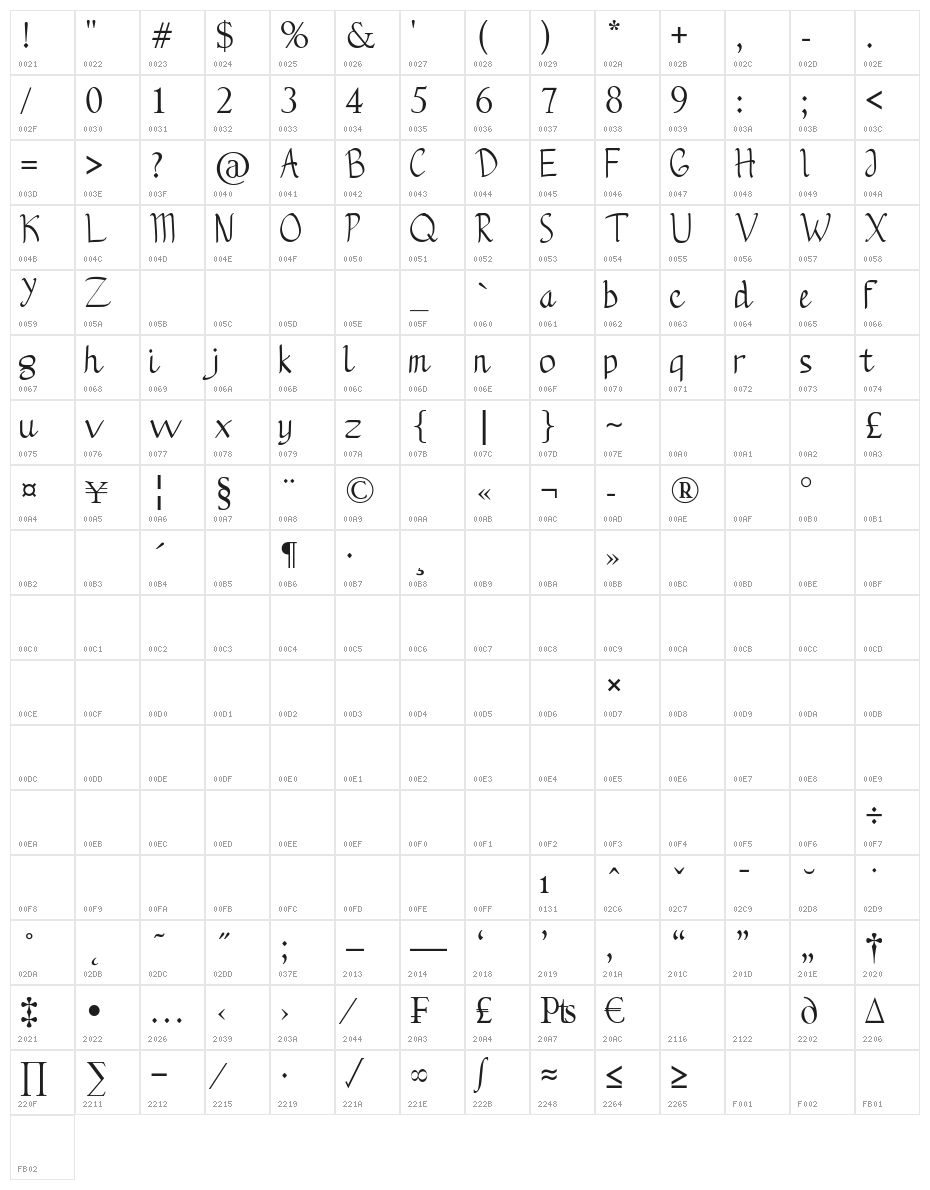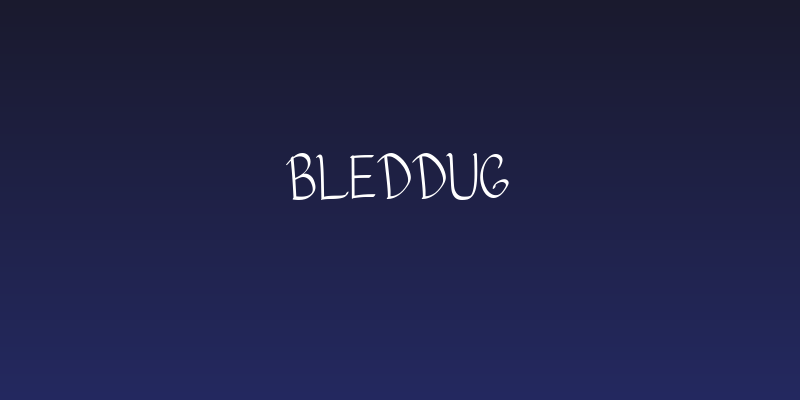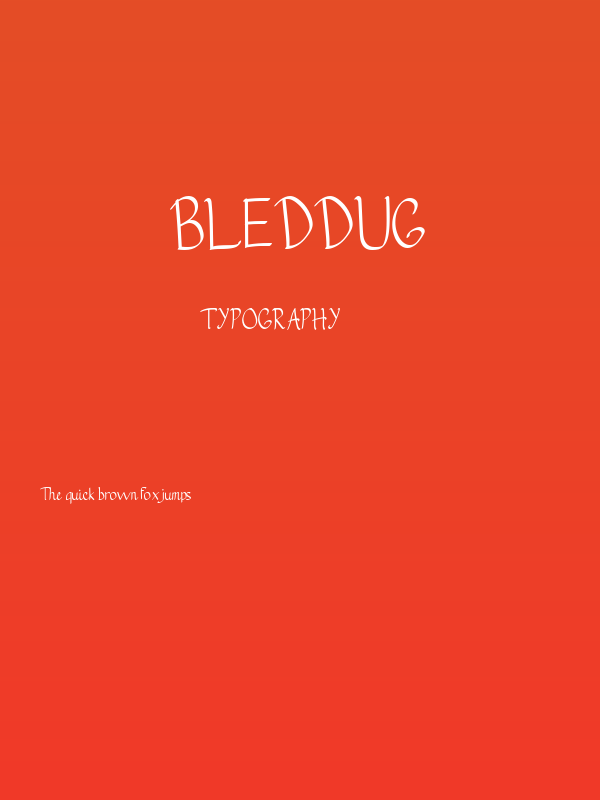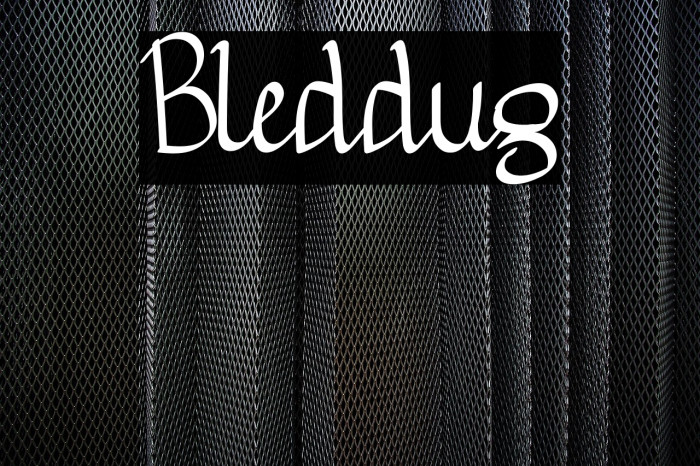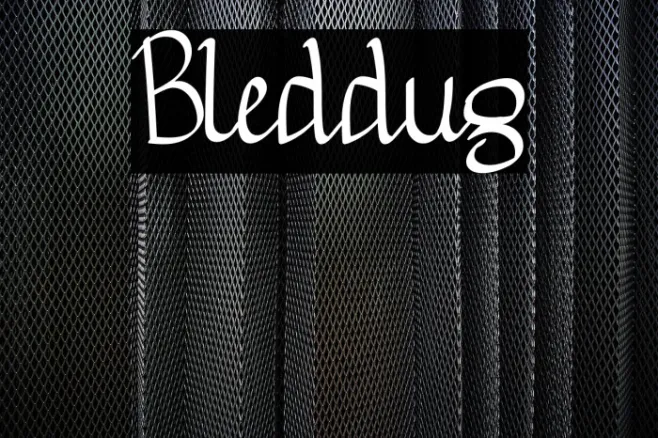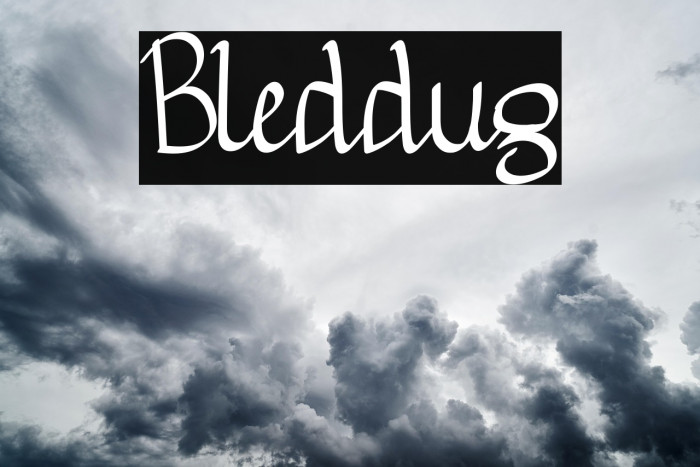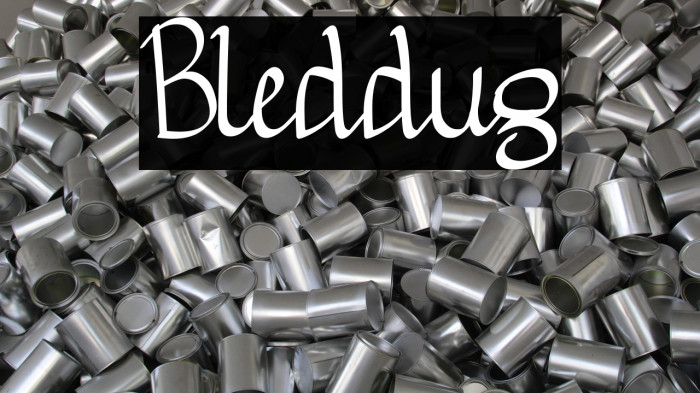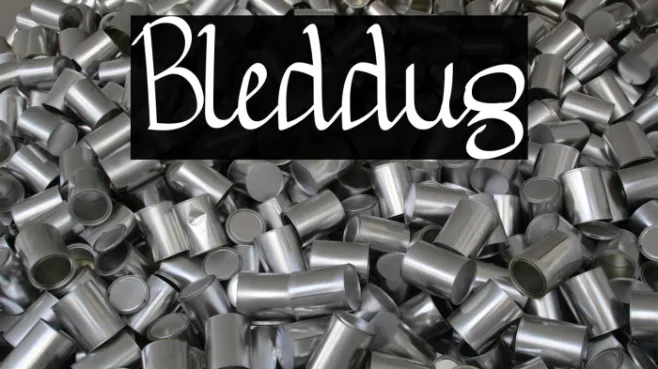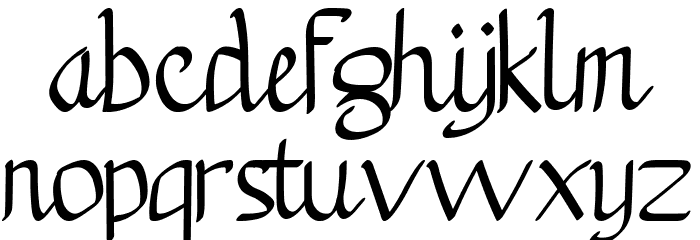
Bleddug Font
Bleddug Description
This font features a unique blend of elegance and playfulness, characterized by its flowing, cursive-like strokes and slightly irregular letterforms. The uppercase letters exhibit a tall and narrow structure, while the lowercase letters maintain a more rounded and open appearance. The numerals are distinct and easy to read, with a slight slant that adds to the overall dynamic feel. Special characters are well-integrated, maintaining the font's whimsical style. The font's design is both artistic and functional, making it suitable for a variety of creative applications.
| Proposed Projects | Ideal for greeting cards, invitations, branding projects, and artistic posters. |